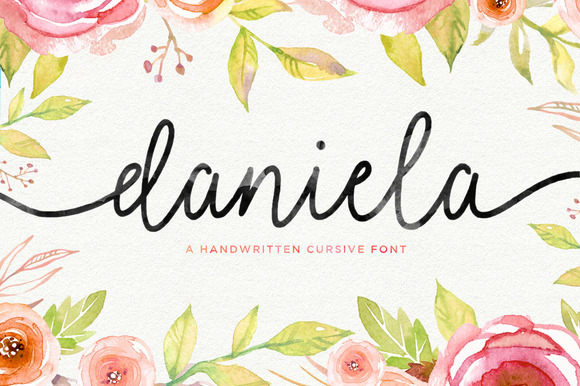
Introducing Daniela Script Font, the ultimate script font for designers who crave a touch of elegance and modernity in their work. Created by seniorsstudio, Daniela Script Font is a must-have addition to any designer's toolkit. With its beautiful handwritten cursive style, this font is perfect for anyone looking to add a touch of sophistication to their projects.
Whether you're working on a logo, invitation, t-shirt design, greeting card, poster, label, book cover, brochure or any other project, Daniela Script Font is the perfect choice. With its versatile nature, this font can be used for a wide range of purposes, making it an essential addition to any designer's collection.
One of the standout features of Daniela Script Font is its modern and elegant touch. This font exudes a sense of sophistication that is unmatched by other script fonts. The cursive style of the font adds a touch of personality to your work, making it stand out from the crowd.
Using Daniela Script Font in your designs is a surefire way to elevate them to the next level. This font has the power to transform even the most mundane designs into stunning pieces of art. With its eye-catching design and captivating style, Daniela Script Font is sure to impress.